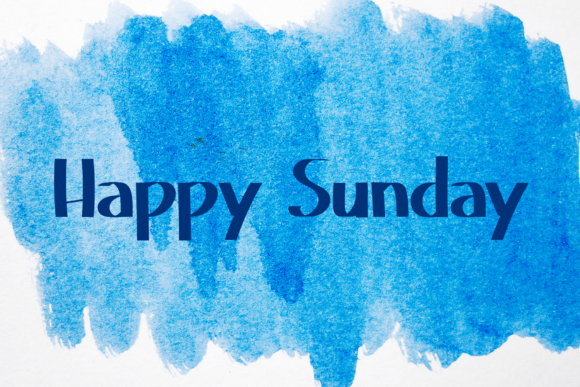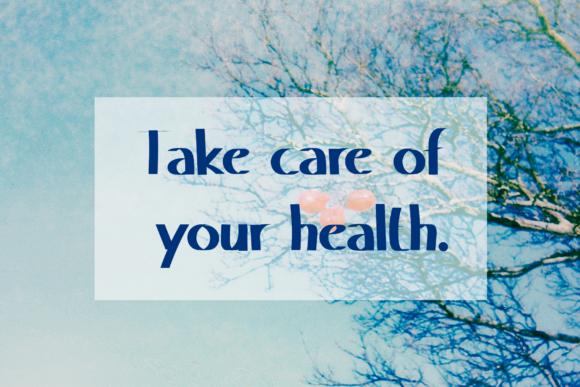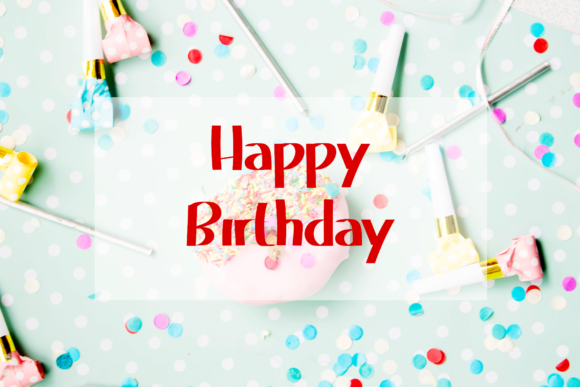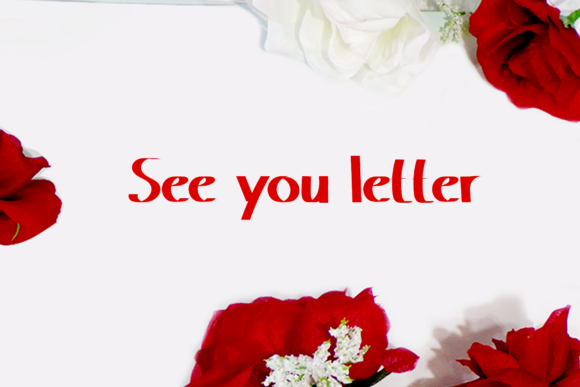
Golden Font
About Golden Font
Golden is an exquisite and classy handwritten font. Elegant and unique, this font will turn each of your designs into outstanding creations!